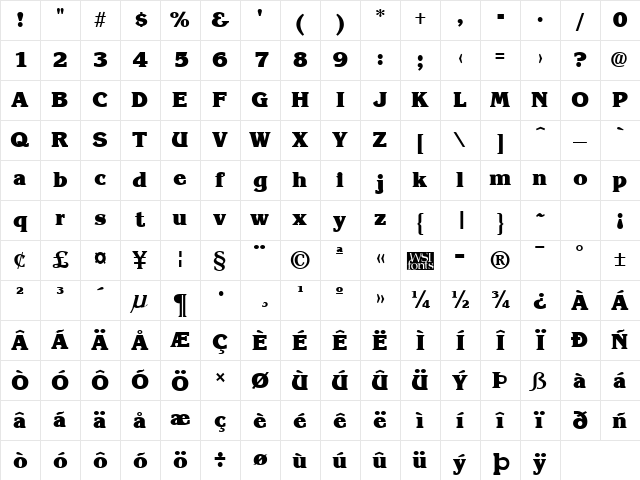
KroneExtrabold Regular
Design Context for KroneExtrabold
KroneExtrabold is a composed and adaptable typeface that performs quietly and consistently across a wide range of design contexts. Its bold stroke weight gives it real presence on the page.